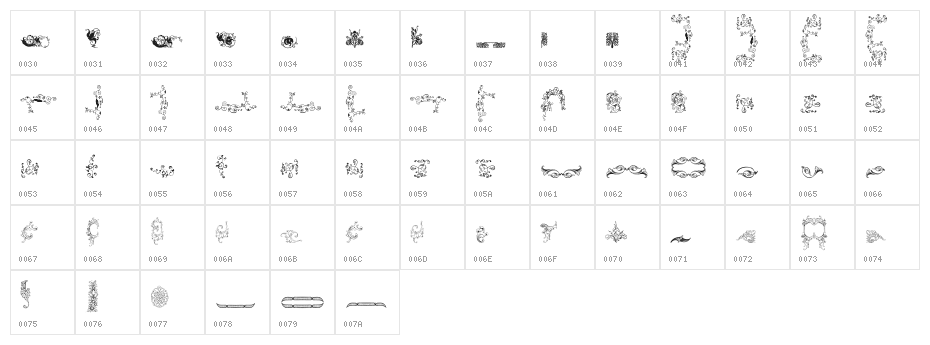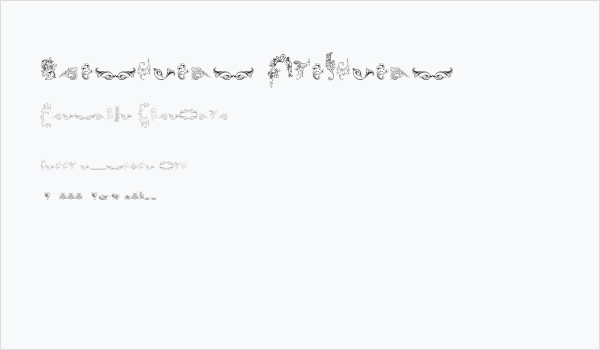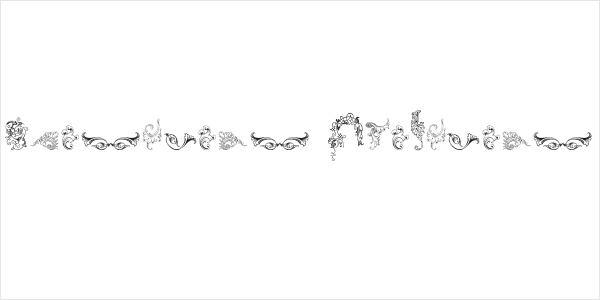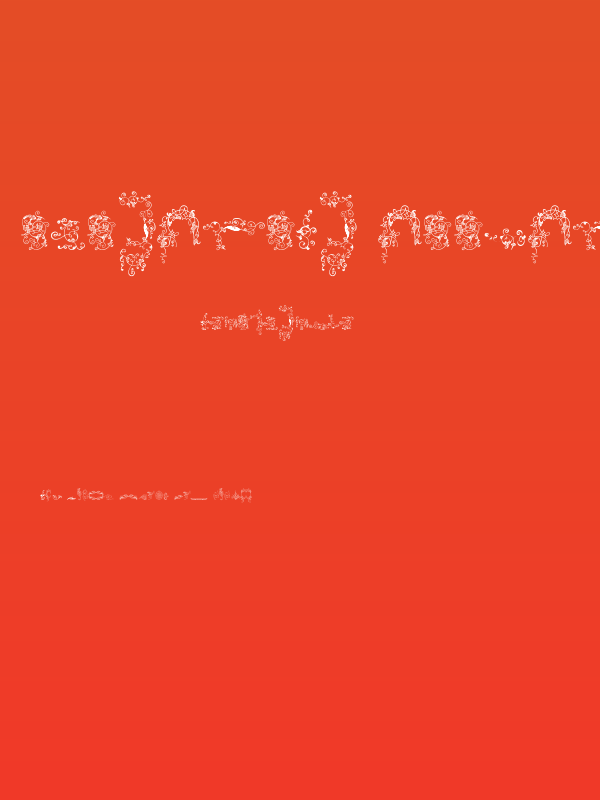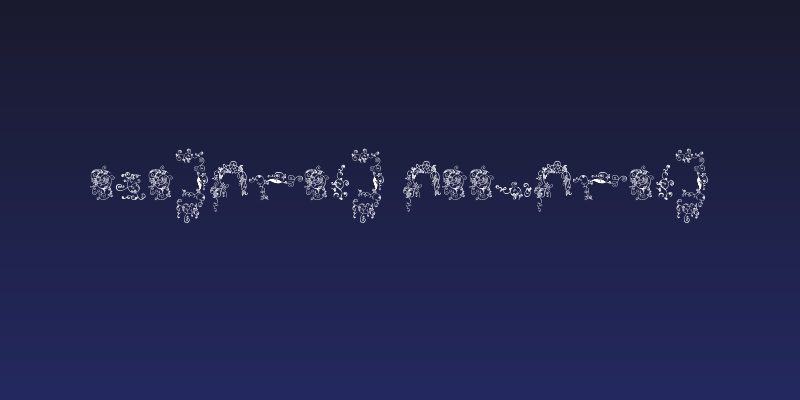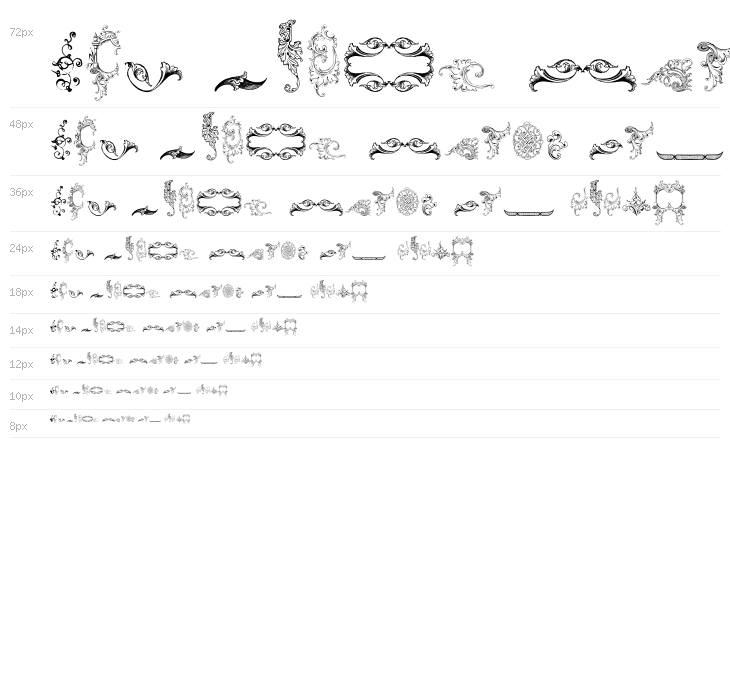
Ornamenta Monumenta Font
Ornamenta Monumenta Description
This font is an intricate and highly decorative typeface, characterized by its elaborate and ornate design elements. Each character is embellished with flourishes and embellishments, creating a sense of grandeur and elegance. The style is reminiscent of classical and baroque art, with swirling patterns and detailed motifs that add a touch of sophistication. The font's complexity makes it suitable for decorative purposes where a luxurious and artistic appearance is desired. It is not intended for body text due to its intricate design, which may affect readability at smaller sizes.
| Use Case | Logos, Headlines, Decorative elements |
| Proposed Projects | Ideal for wedding invitations, luxury branding, decorative headings, and artistic projects requiring a classical touch. |